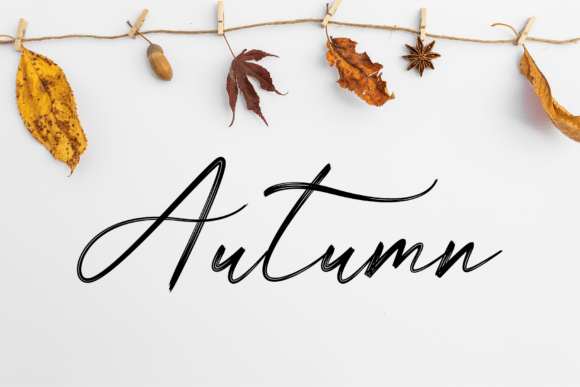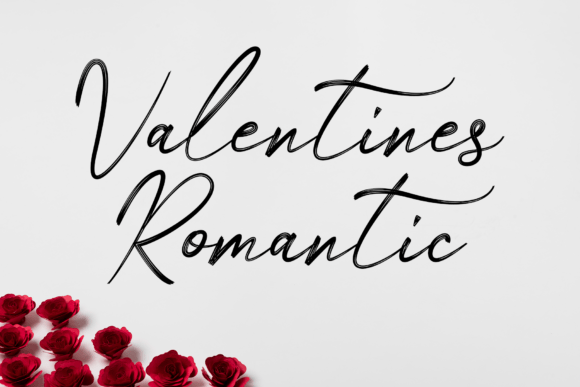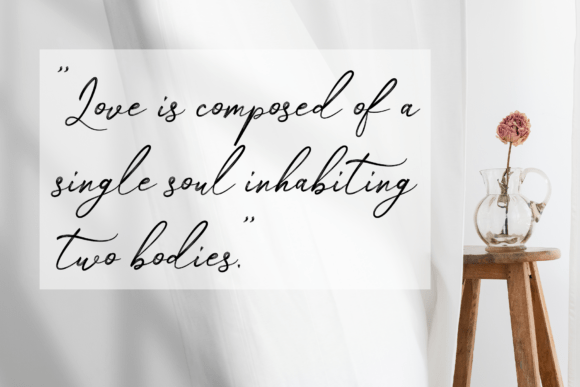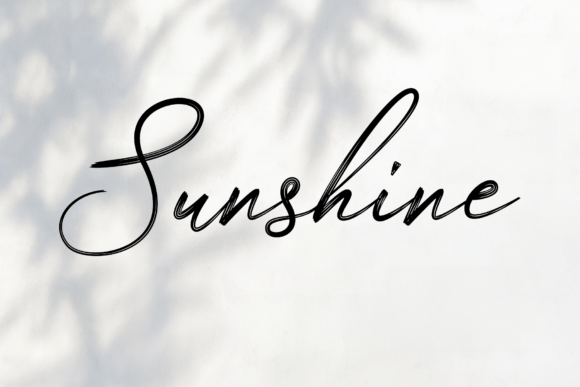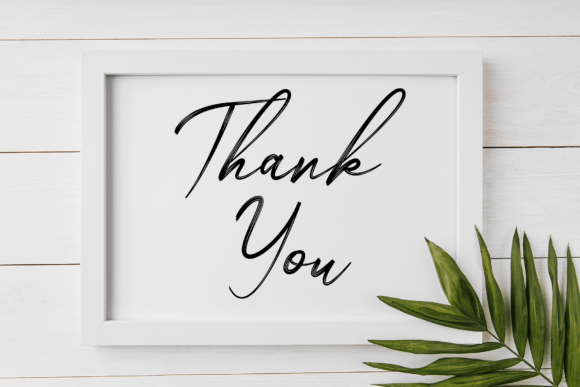
Introducing Angelica Austin Font: A Timeless Handwritten Brush Font
Are you a designer or crafter looking for a font that captures the essence of nostalgia and elegance? Look no further than Angelica Austin, a remarkably slim and sophisticated handwritten brush font. This beautiful font is designed to evoke the timeless charm of a handwritten letter, making it perfect for a wide range of creative projects.
The Inspiration Behind Angelica Austin
Every stroke of Angelica Austin echoes with nostalgia, capturing moments that are etched into the canvas of time. This font is a harmonious blend of delicacy and elegance, making it perfect for designers and crafters who want to add a touch of sophistication to their work. Whether you’re creating a wedding invitation, a scrapbook page, or a social media graphic, Angelica Austin is the perfect choice.
Unique Characteristics of Angelica Austin
Angelica Austin exudes a character that is not only unique but also resonates with the ineffable beauty of memorable moments. This font features:
- Remarkably slim and sophisticated handwritten brush strokes
- A harmonious blend of delicacy and elegance
- A timeless charm reminiscent of handwritten letters
- A unique character that resonates with the beauty of memorable moments
Angelica Austin is the perfect font for designers and crafters who want to add a touch of elegance and sophistication to their work. This font is ideal for:
- Scrapbooking and paper crafting
- Social media graphics and branding
- Any project that requires a touch of elegance and sophistication
Why Choose Angelica Austin?
There are many fonts available, but Angelica Austin stands out from the rest. Here are just a few reasons why:
- Unique and memorable design
- High-quality and precise brush strokes
- Perfect for a wide range of creative projects
- Easily readable and versatile
- Supports a wide range of languages
Tips for Using Angelica Austin
To get the most out of Angelica Austin, here are a few tips:
- Use it as a headline font to add a touch of elegance and sophistication
- Pair it with a sans-serif font for a modern and contrasting look
- Use it to create a sense of nostalgia and timelessness in your design
Angelica Austin is a truly unique and sophisticated handwritten brush font that is perfect for designers and crafters. With its remarkably slim and elegant strokes, this font is sure to capture the essence of nostalgia and elegance in any creative project. Whether you’re creating a wedding invitation, a scrapbook page, or a social media graphic, Angelica Austin is the perfect choice.